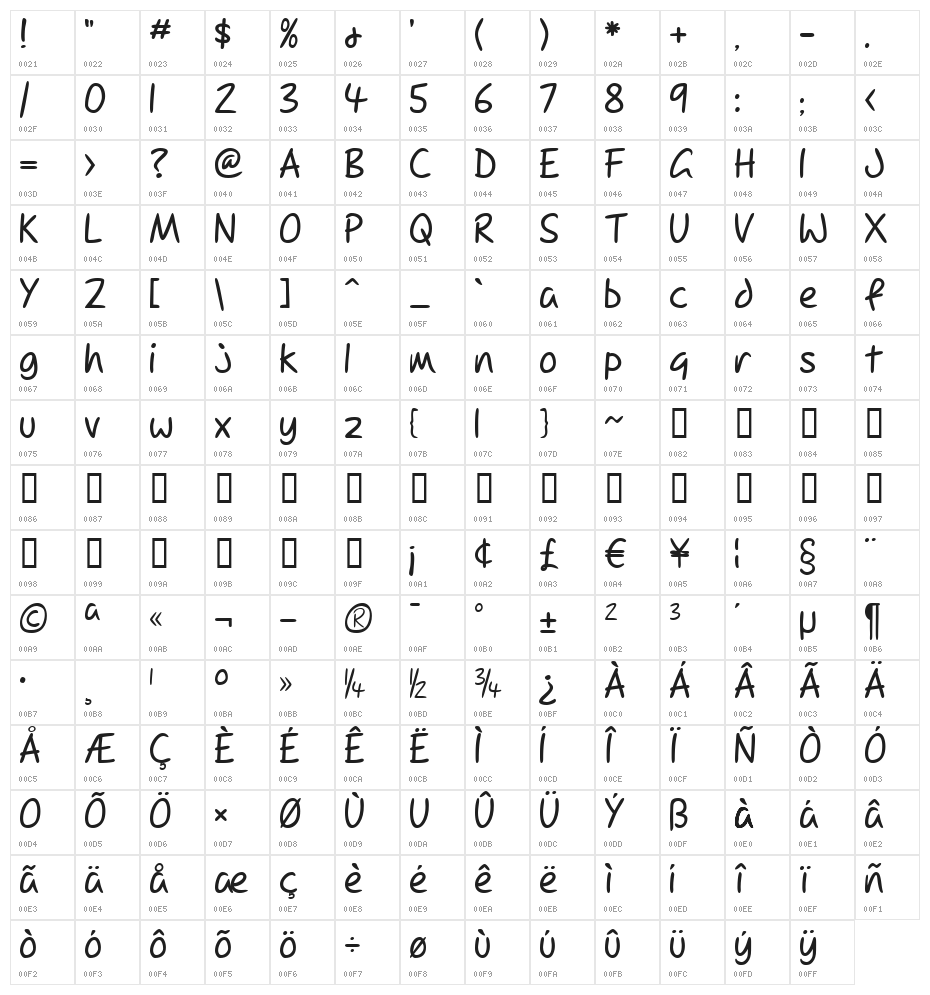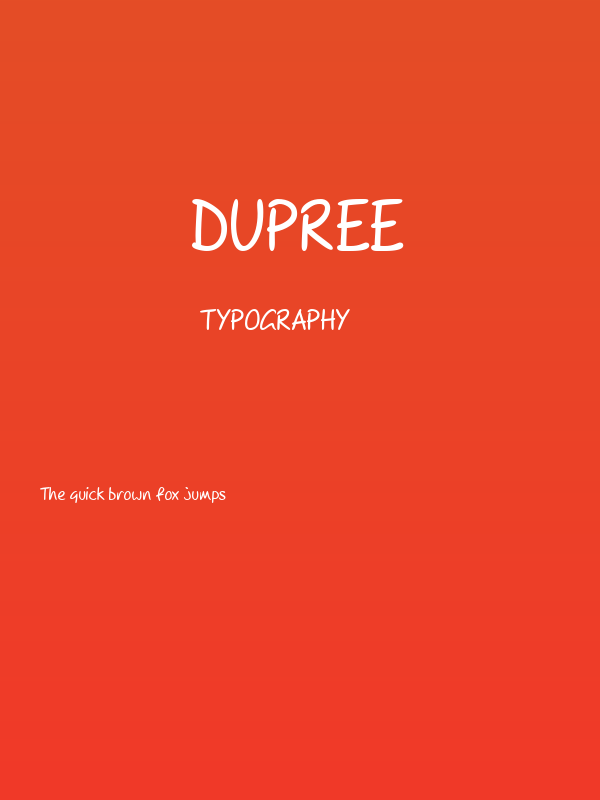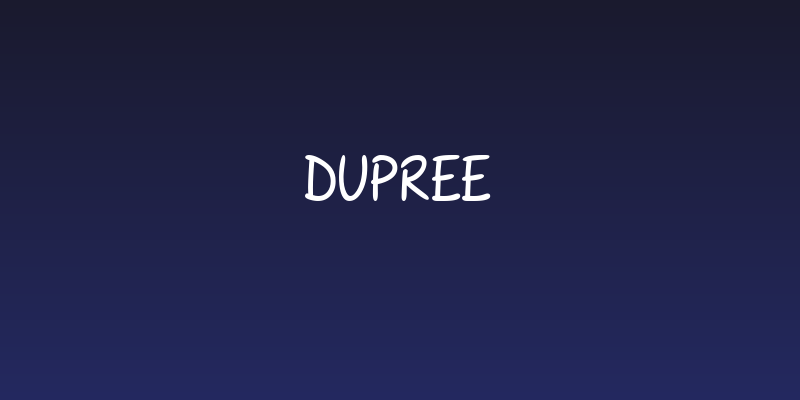
Dupree Font
✎ Handwritten
| श्रेणियाँ | Handwritten |
| समग्र शैली | Casual, Playful |
| उपयोग का मामला | Headlines, Informal text, Creative projects |
| सुझाए गए प्रोजेक्ट | Ideal for greeting cards, invitations, children's books, and informal branding. |